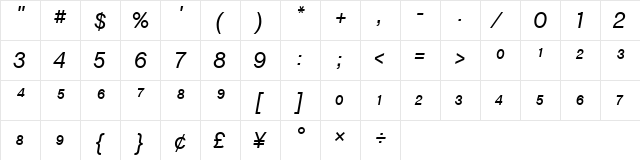
ChaletBookTTFrac Italic
| Foundry | House Industries/Brand Design Co. Inc, |
| Designer | House Industries |
Design Context for ChaletBookTTFrac Typeface
ChaletBookTTFrac is a composed and adaptable typeface that performs quietly and consistently across a wide range of design contexts. The dynamic lean of this cut emphasises speed and emphasis in any layout.
Pro Tip: Use ChaletBookTTFrac for emphasis, pull quotes, and subheadings where its slanted energy can add rhythm to the layout.